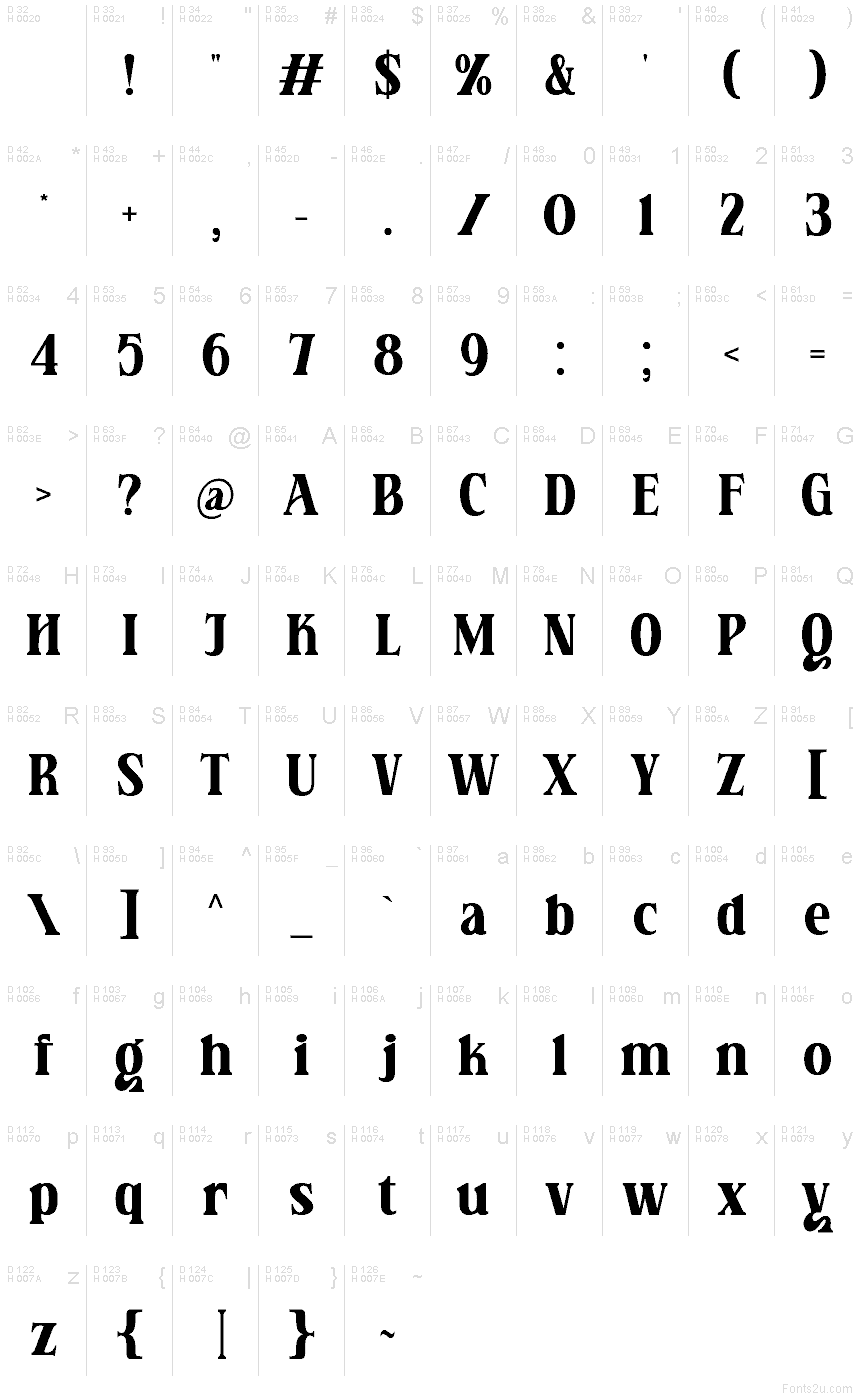
Chusten Bullgis
Chusten Bullgis font by HansCo is a free decorative serif font. Built around plush, inky strokes and scalloped serifs, it balances bold mass with elegant curves, so headlines feel both substantial and refined. The dramatic lowercase forms—especially the swooping tails and teardrop touches—add a tactile, carved quality that reads like letterpress without the grit.
Using Chusten Bullgis, you get statement-making rhythm for boutique logos, wine labels, editorial mastheads, posters, book covers, restaurant menus, and premium packaging. This free font shines on large sizes where its contrast can breathe; pair it with a clean geometric sans for body copy or small captions to keep layouts crisp and modern.